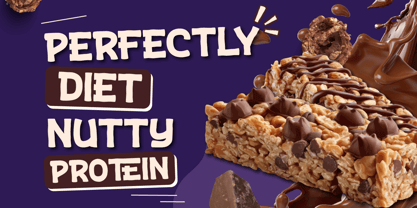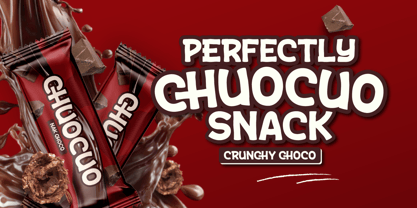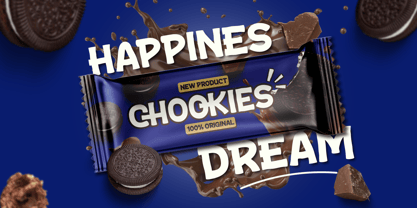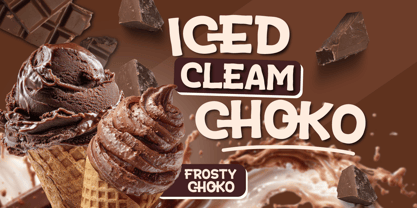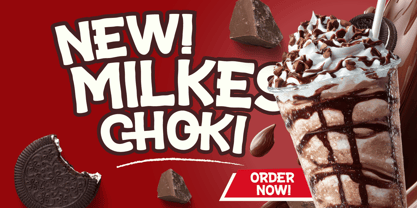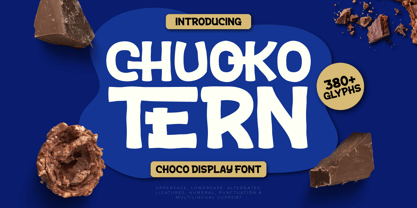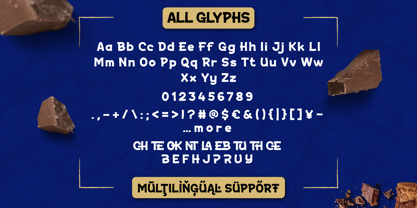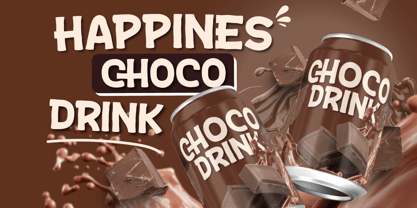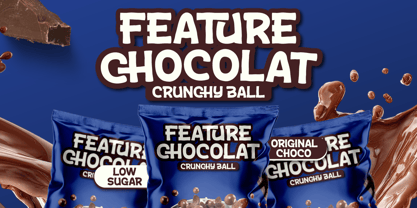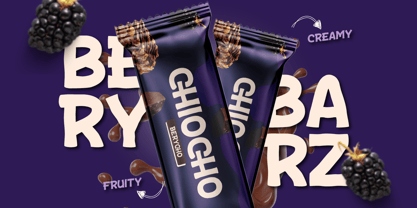
Chuoko Tern is a Choco Display Font typeface designed to bring visual identities to life within the F&B (Food & Beverage) industry. Featuring bold letterforms and slightly irregular organic edges, this font represents the texture of chocolate bars and sweet treats. Its characteristics are ideal for products in the Snack & Confectionery sector aiming to highlight an appetizing and authentic impression.
The font's anatomical structure prioritizes high readability with a modern handmade feel, making it a reliable solution for Chocolate Bar packaging and artisan product labels. Highly relevant to Daily Break-time Snack themes, Chuoko Tern balances cheerful visual appeal with the professionalism of retail product design. Each character helps create a strong information hierarchy on competitive store shelves.
As an expressive culinary typography solution, Chuoko Tern is highly effective for promotional posters, bakery menus, and dessert-themed social media content. Its ability to create memorable branding helps products appear more characterful to consumers. This font is a smart choice for designers seeking an Appetizing Display Font aesthetic to enhance the visual appeal of daily products
- All glyphs and Feature
Chuoko Tern